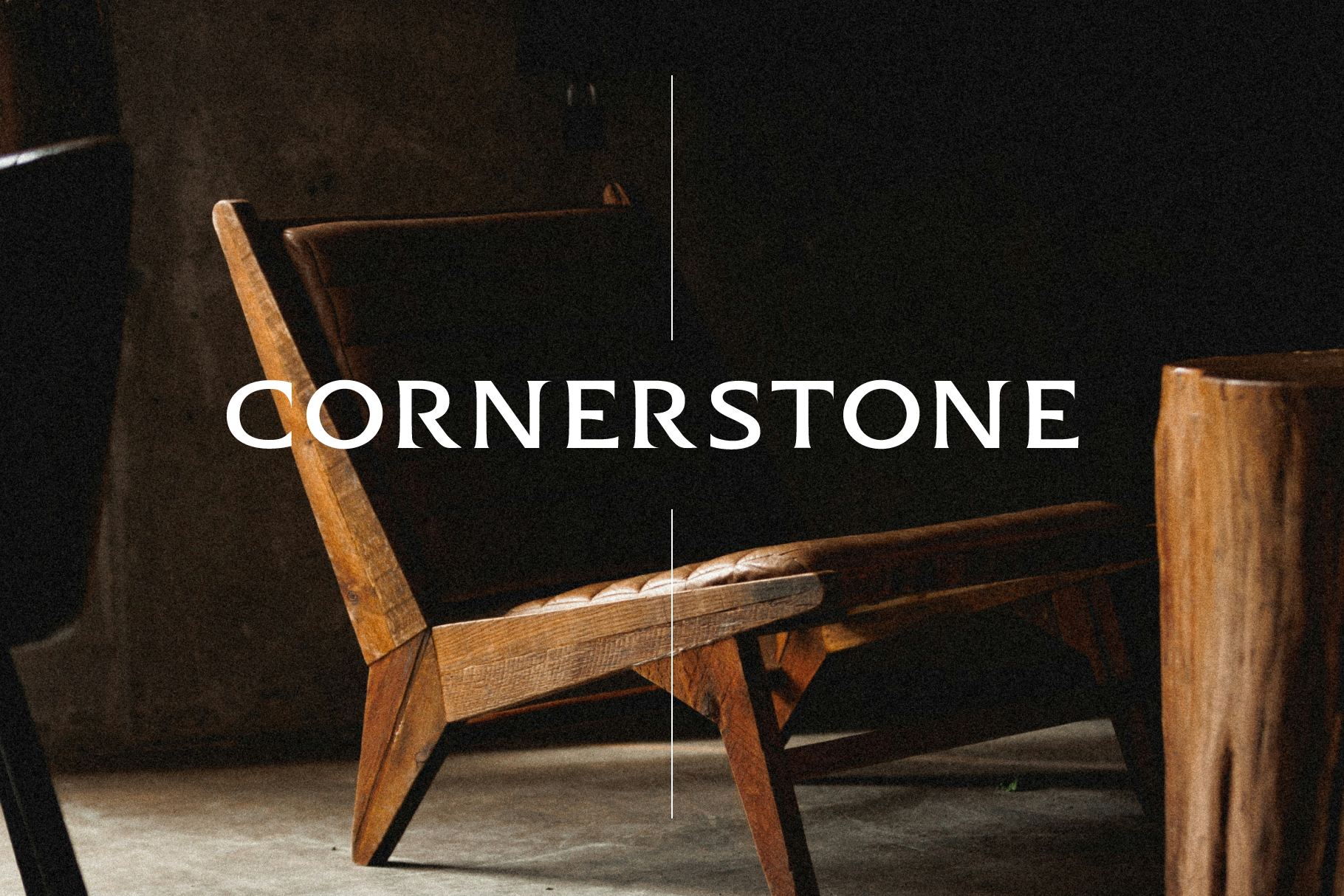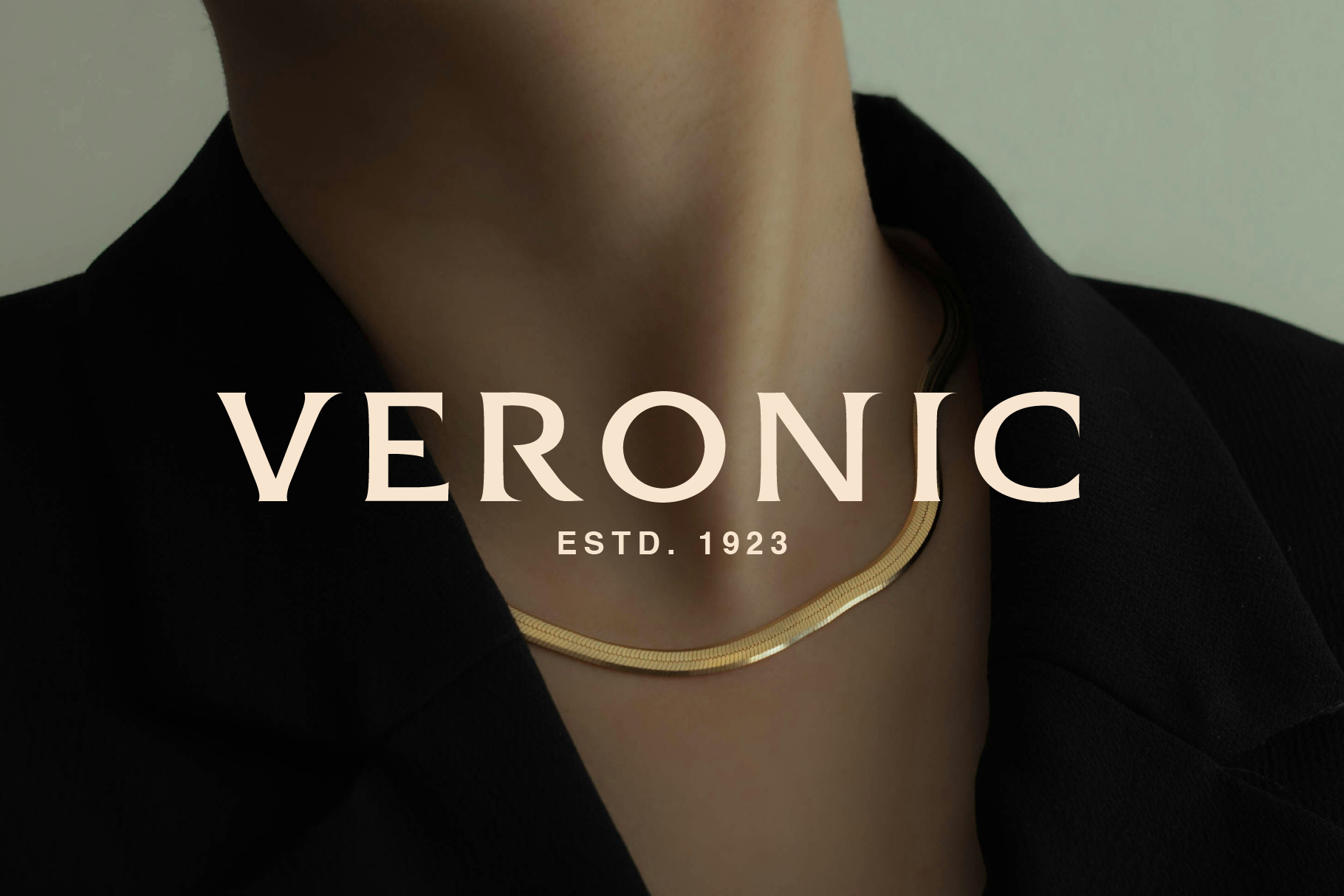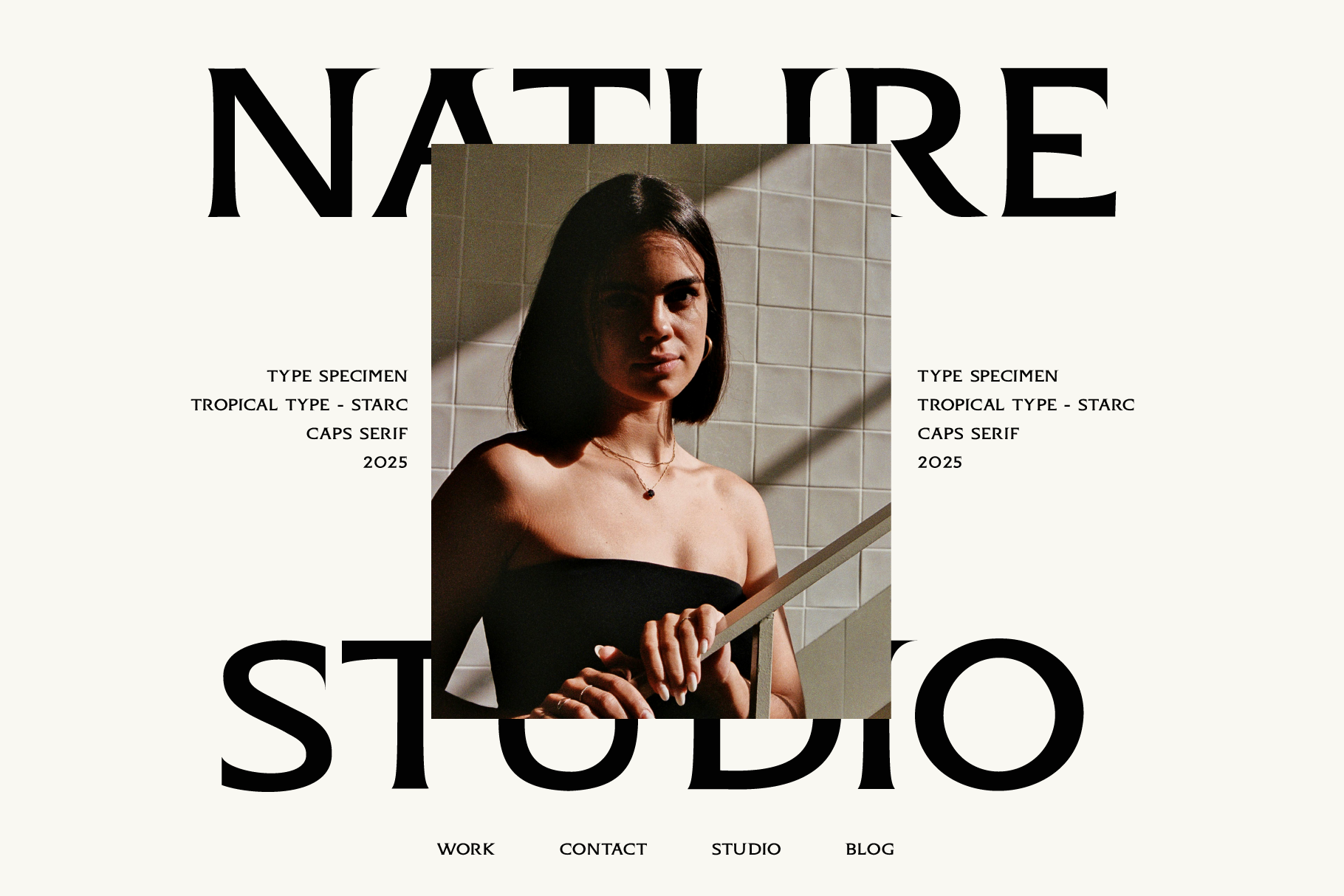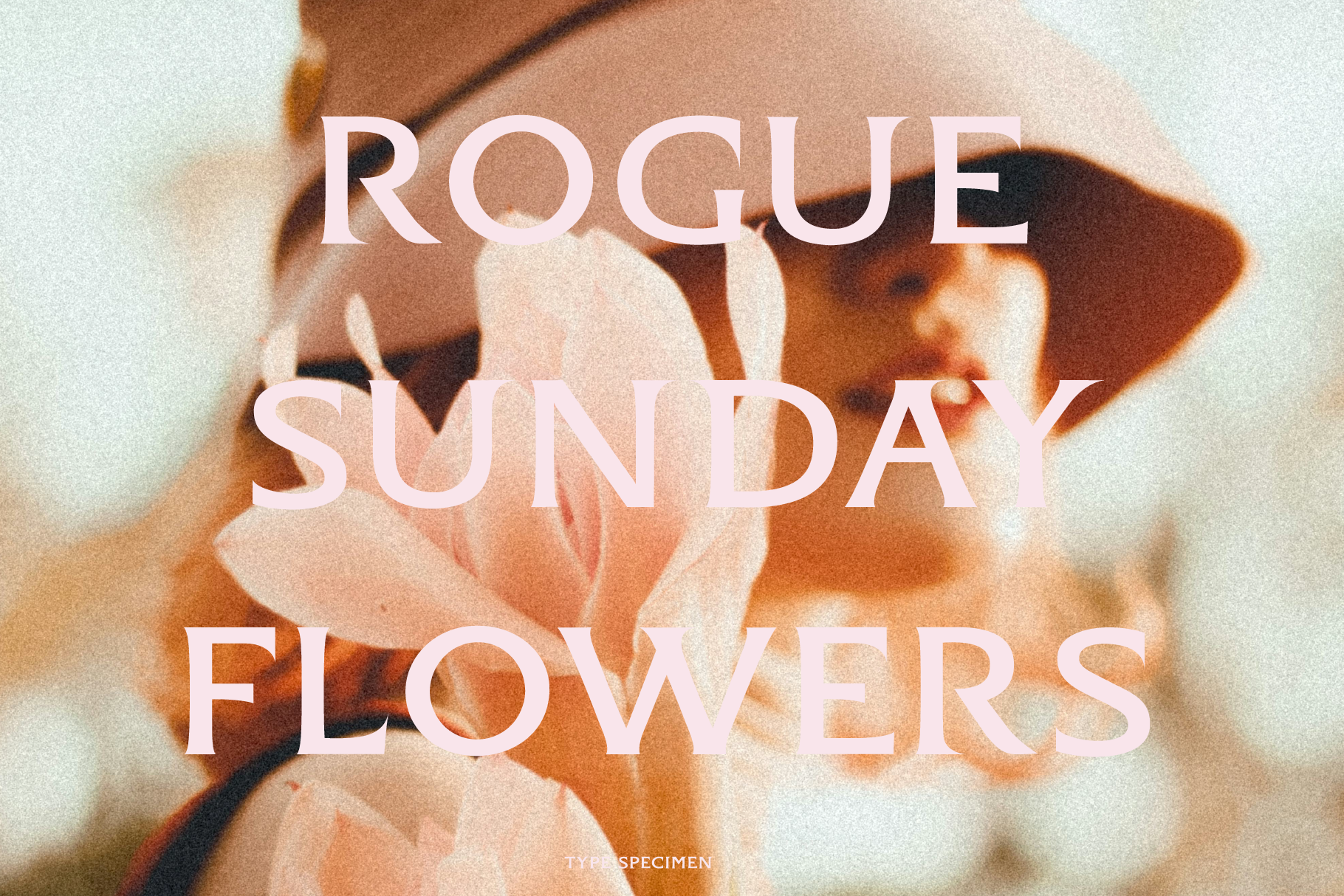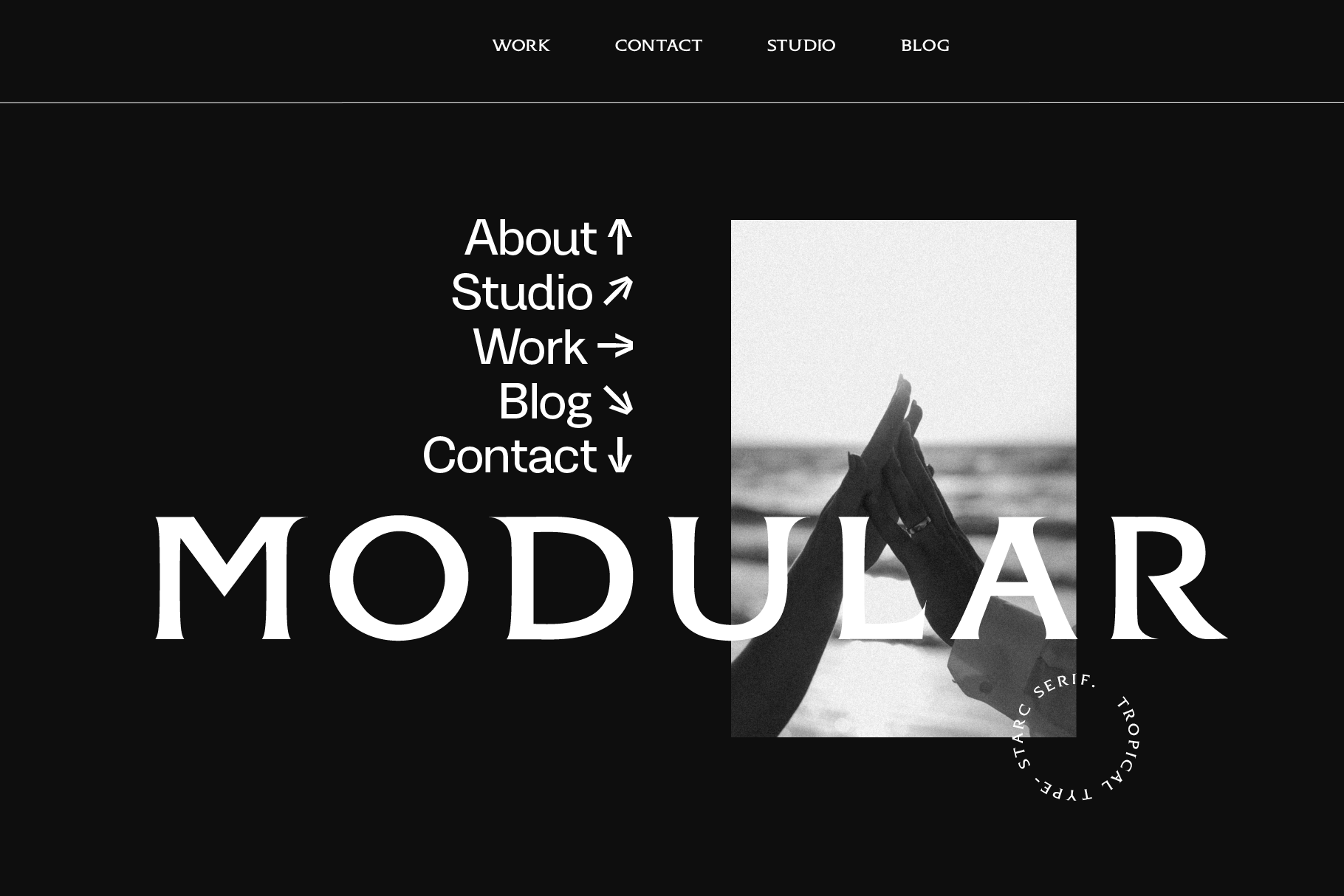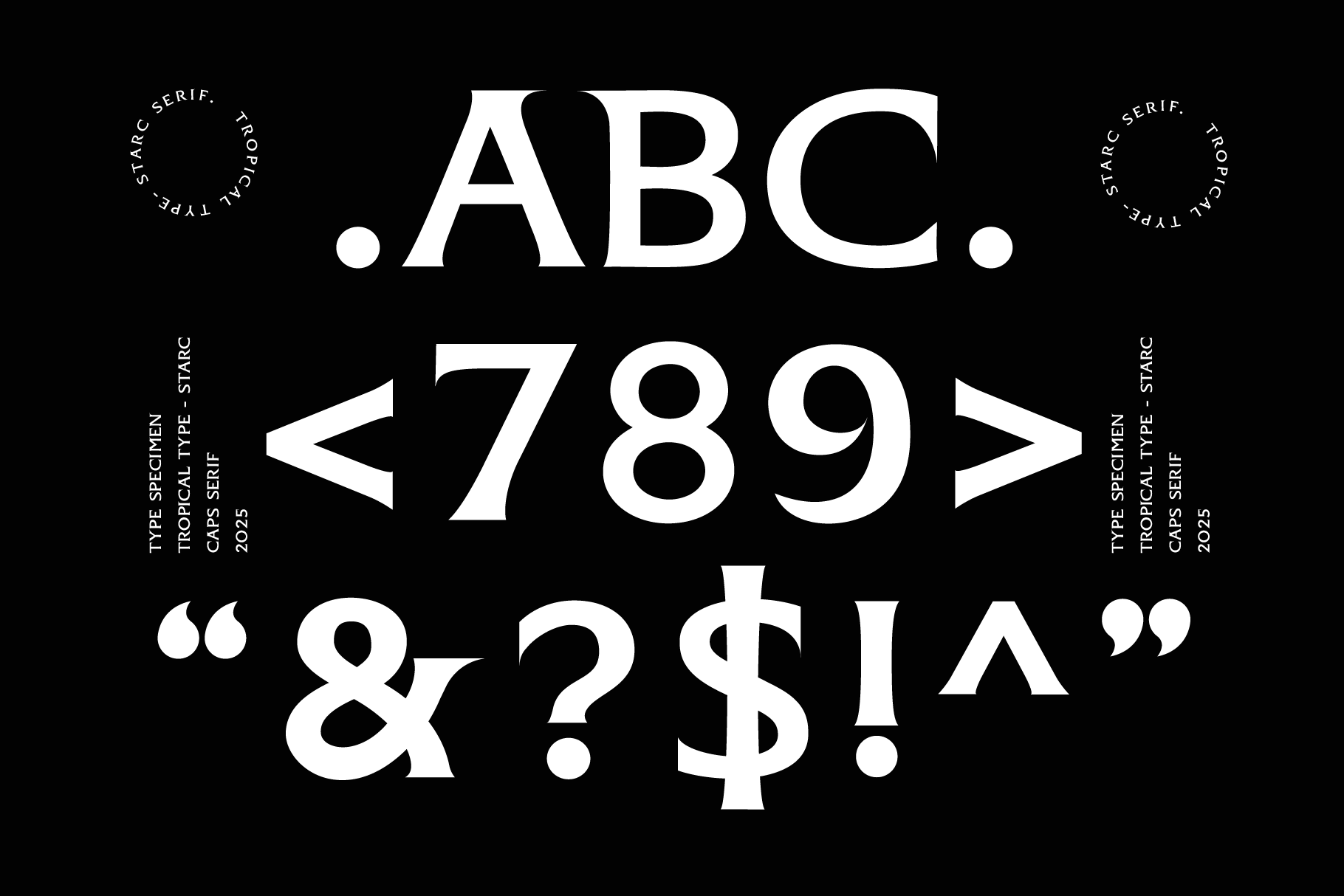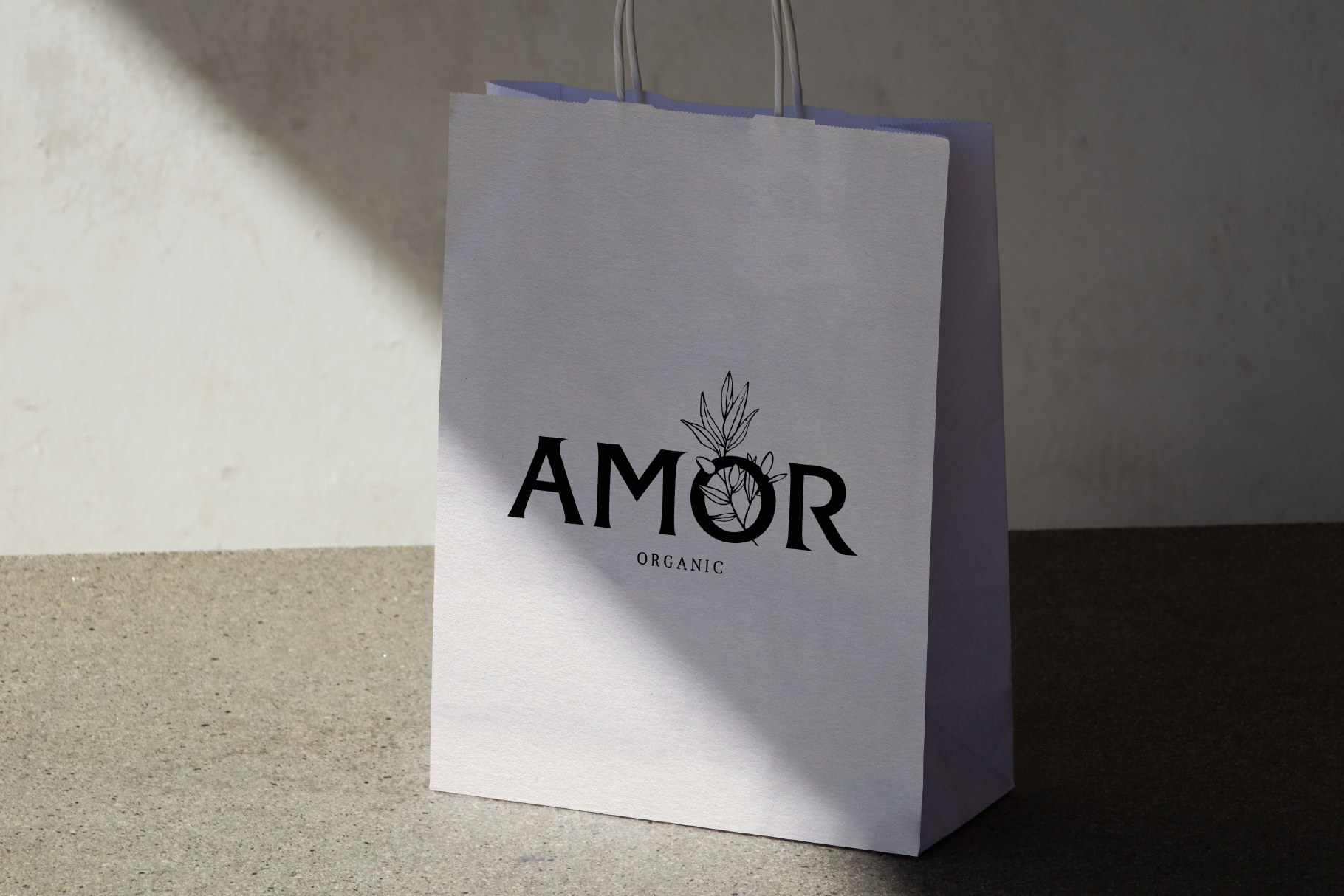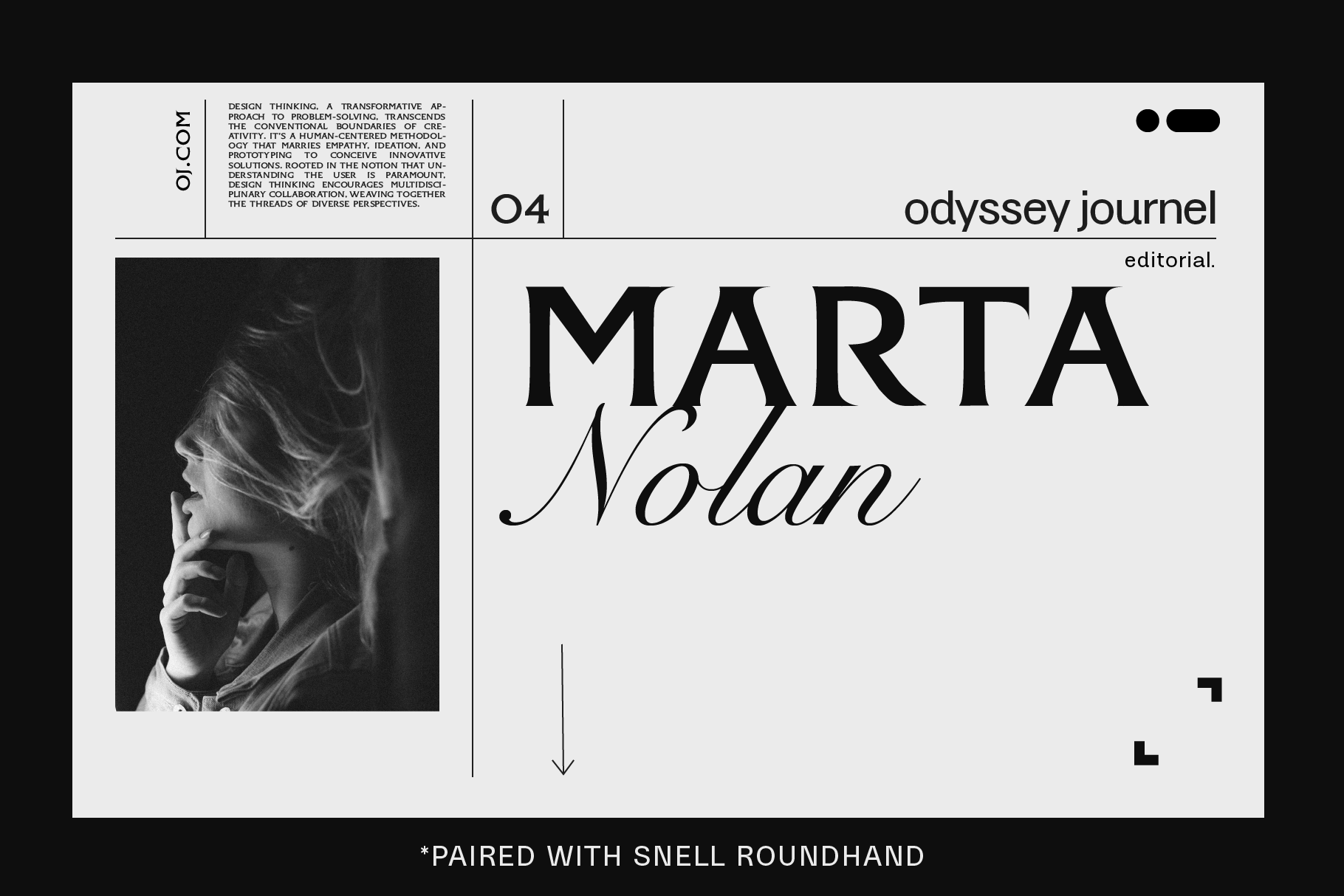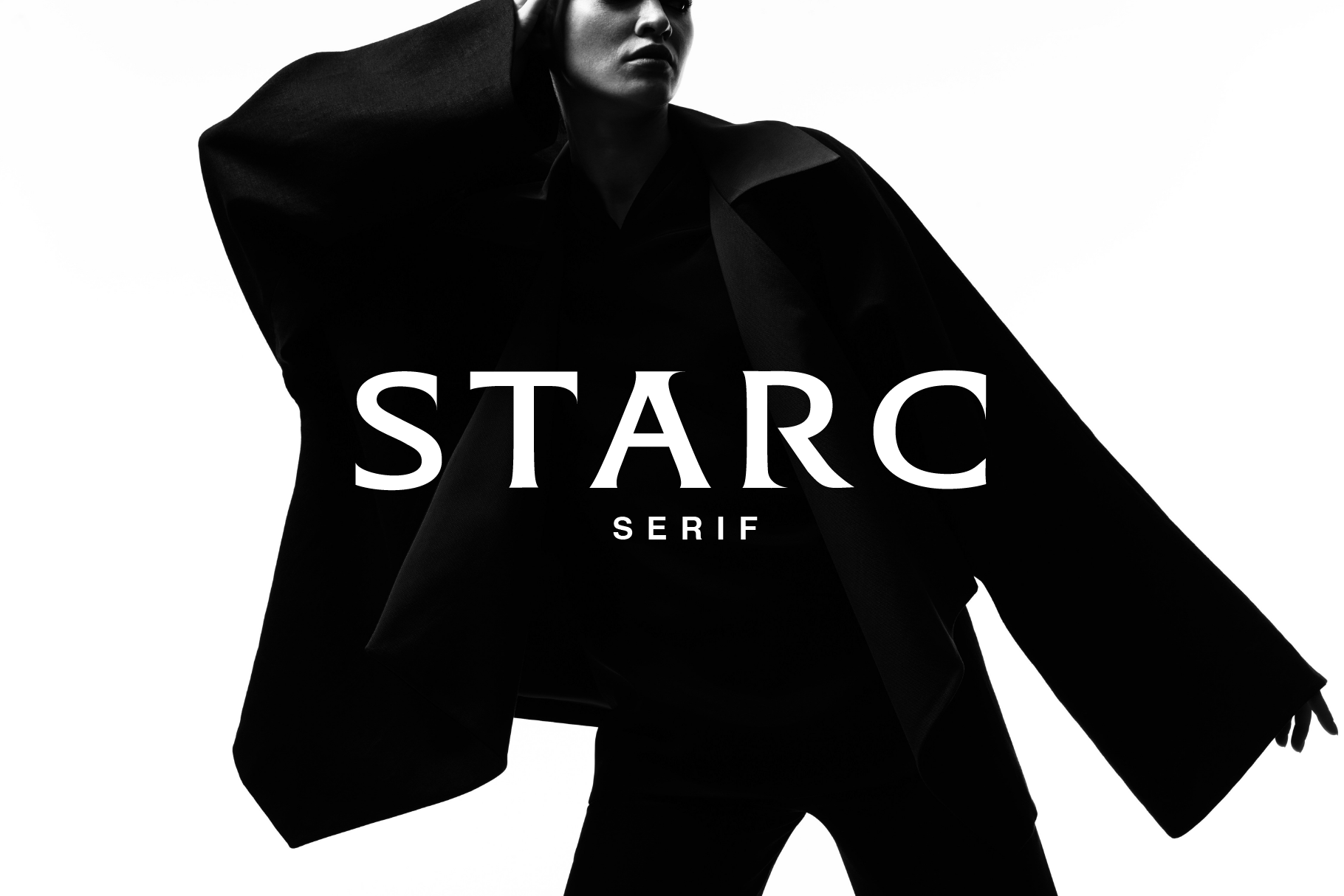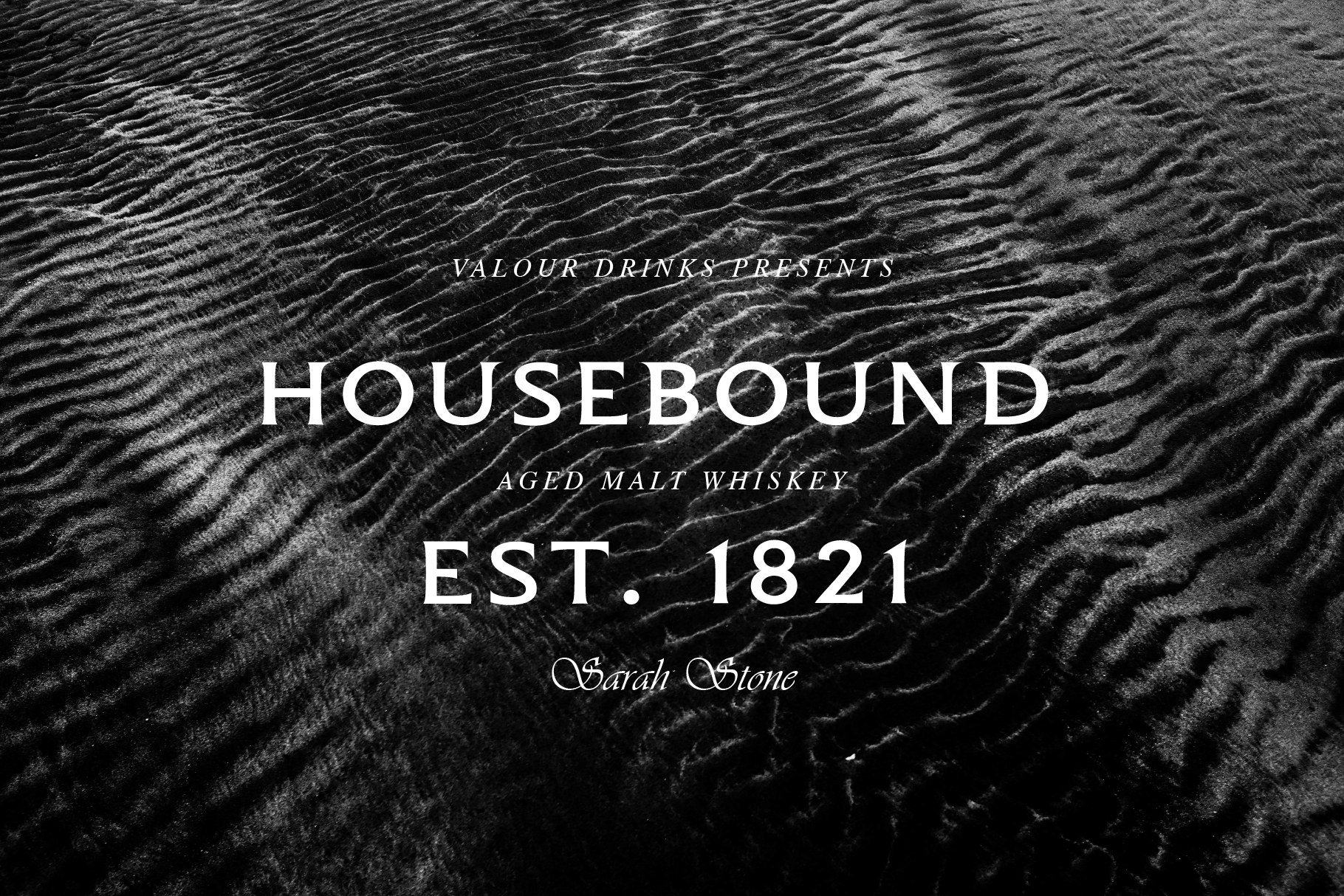
Starc Serif
Starc Serif is bold and edgy, but in a distinguished way. Its low-contrast caps are mostly conservative, but each contains one sharp serif to add a subtle distinction to your typography. Perfect for fashion or jewellery labels where you need thickness and legibility at small sizes while remaining interesting. This is a caps-only typeface and loves to be spaced out wide! Pair it with a minimal sans serif for the perfect contrast.